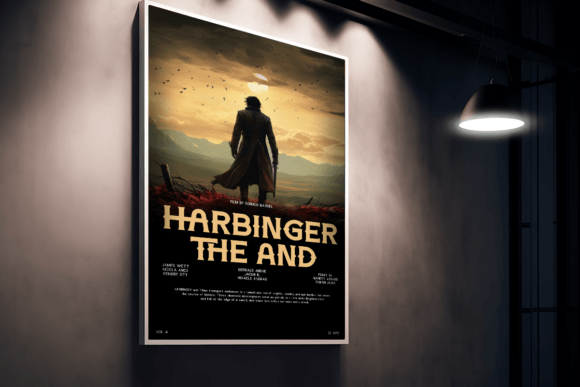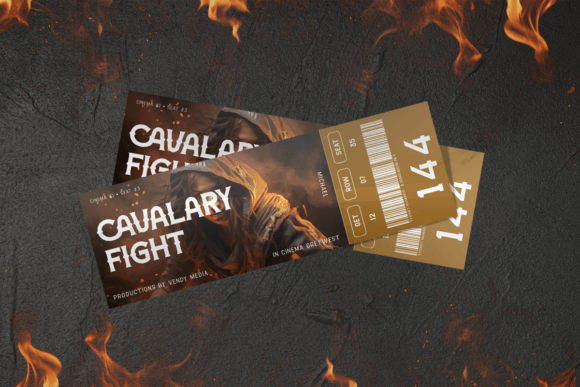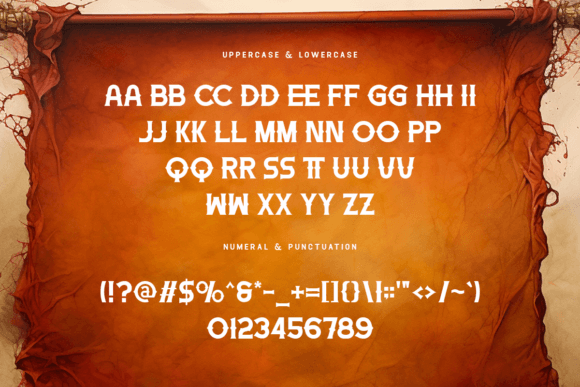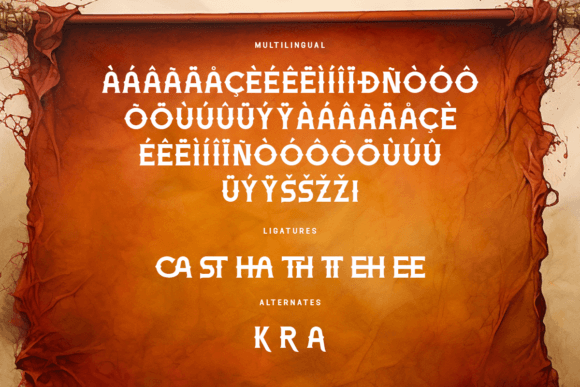
Introducing Casthara Font: The Ultimate Display Typeface for Cinematic Designs
In the world of typography, a good font can make all the difference in the success of a design project. For creative professionals and film enthusiasts, finding the perfect typeface that exudes drama, sophistication, and attention-grabbing appeal can be a daunting task. This is where Casthara Font comes in – a bold and cinematic typeface designed to captivate and impress.
What is Casthara Font?
Casthara Display Film Font is a sleek and modern typeface, specifically crafted for high-impact designs that demand attention. Its strong visual presence makes it perfectly suited for movie titles, posters, and other creative projects that require a touch of drama and sophistication. Whether you’re working on a film project, designing a poster, or creating engaging content for digital media, Casthara Font is the ideal choice.
Key Features of Casthara Font
- Bold and Cinematic Design: Casthara Font boasts a bold and cinematic design, making it perfect for creating eye-catching titles, headings, and captions.
- PUA Encoded: This font is PUA encoded, which means you can access all of the cute glyphs and swashes with ease, giving you more creative freedom and flexibility.
- High-Impact Designs: Casthara Font is designed for high-impact designs, making it ideal for movie titles, posters, and other creative projects that require a strong visual presence.
- Versatile and Adaptable: This font is versatile and adaptable, suitable for both print and digital media, including film, television, and online content.
Why Choose Casthara Font?
So, why should you choose Casthara Font for your next design project? Here are a few compelling reasons:
- Adds Drama and Sophistication: Casthara Font brings a touch of drama and sophistication to any project, elevating your design to the next level.
- Attention-Grabbing: Its bold and cinematic design ensures that your project demands attention and leaves a lasting impression on your audience.
- Perfect for Film and Media: Casthara Font is specifically designed for film and media projects, making it the perfect choice for creative professionals and film enthusiasts.
- Ease of Use: With its PUA encoding, you can easily access all the glyphs and swashes, making it easy to use and incorporate into your design workflow.
- Pair it with Other Fonts: Experiment with pairing Casthara Font with other fonts to create a unique and visually appealing design.
- Customize and Experiment: Take advantage of the font’s PUA encoding to access glyphs and swashes, and experiment with different design elements to create a distinctive look.
- Use it for Headings and Titles: Casthara Font is perfect for headings and titles, so use it to create eye-catching and attention-grabbing text.
In conclusion, Casthara Font is a powerful and polished typeface that is perfect for creative professionals and film enthusiasts looking to add a touch of drama and sophistication to their design projects. Its bold and cinematic design, combined with its PUA encoding and versatility, make it an ideal choice for high-impact designs that demand attention. Whether you’re working on a film project, designing a poster, or creating engaging content for digital media, Casthara Font is the go-to choice for creating stunning and memorable designs.